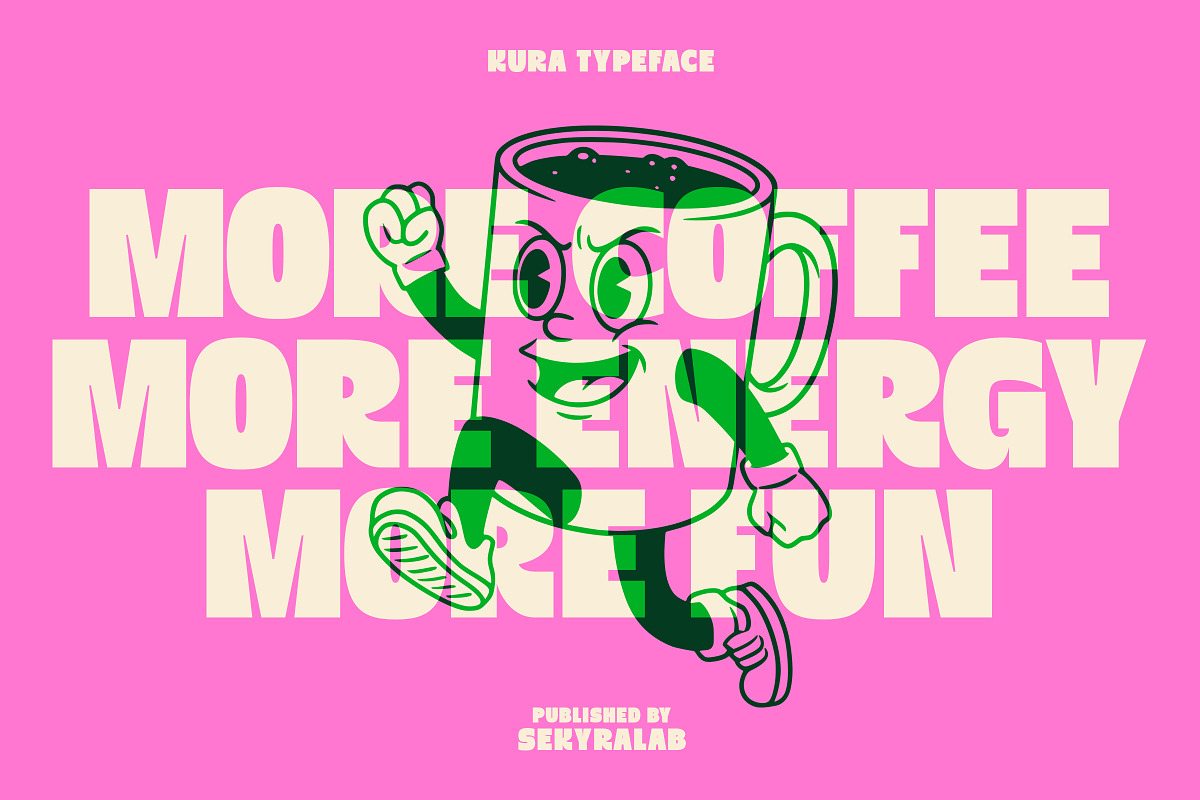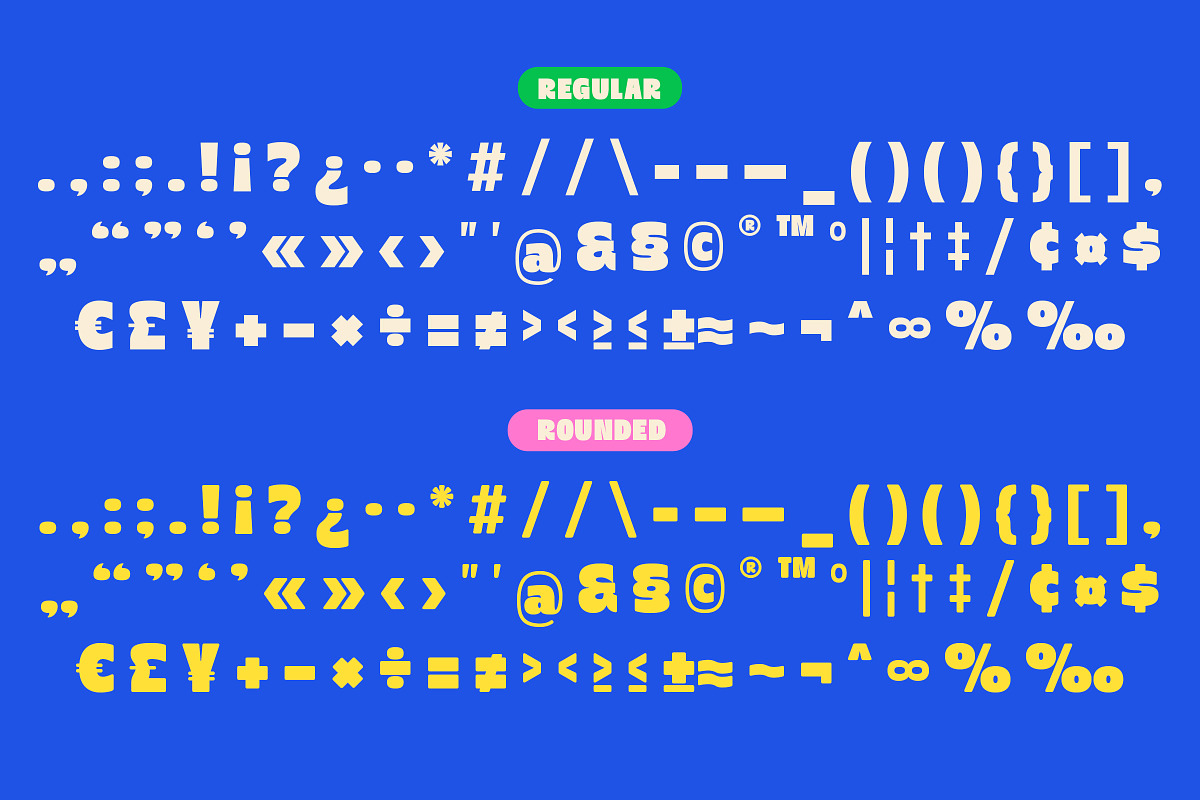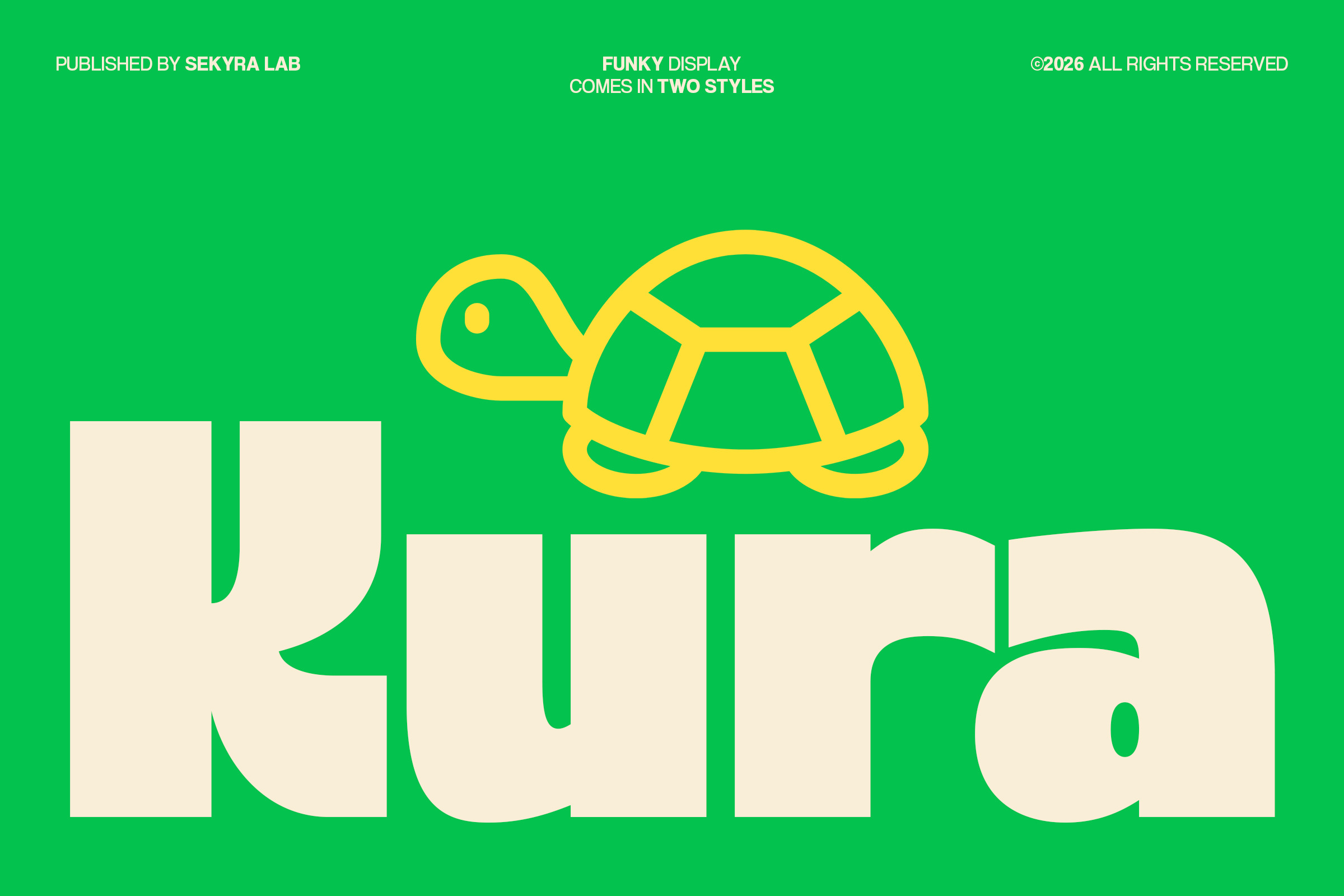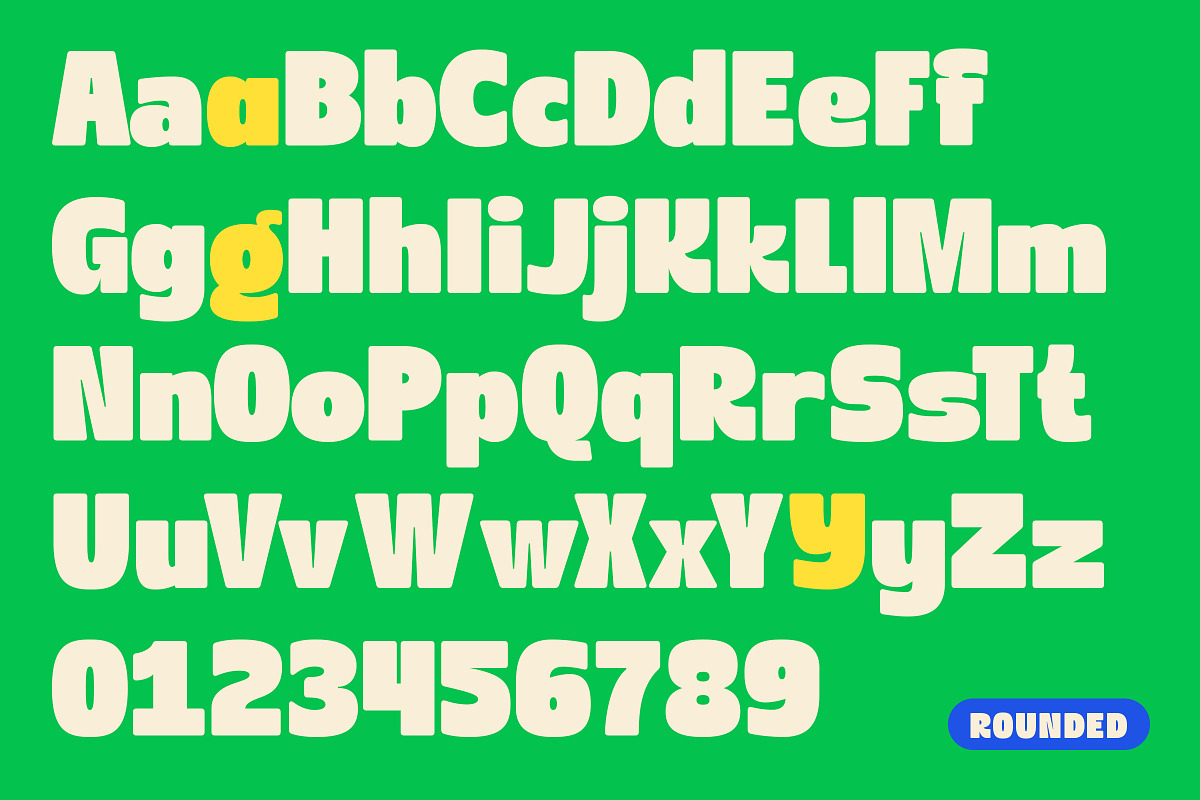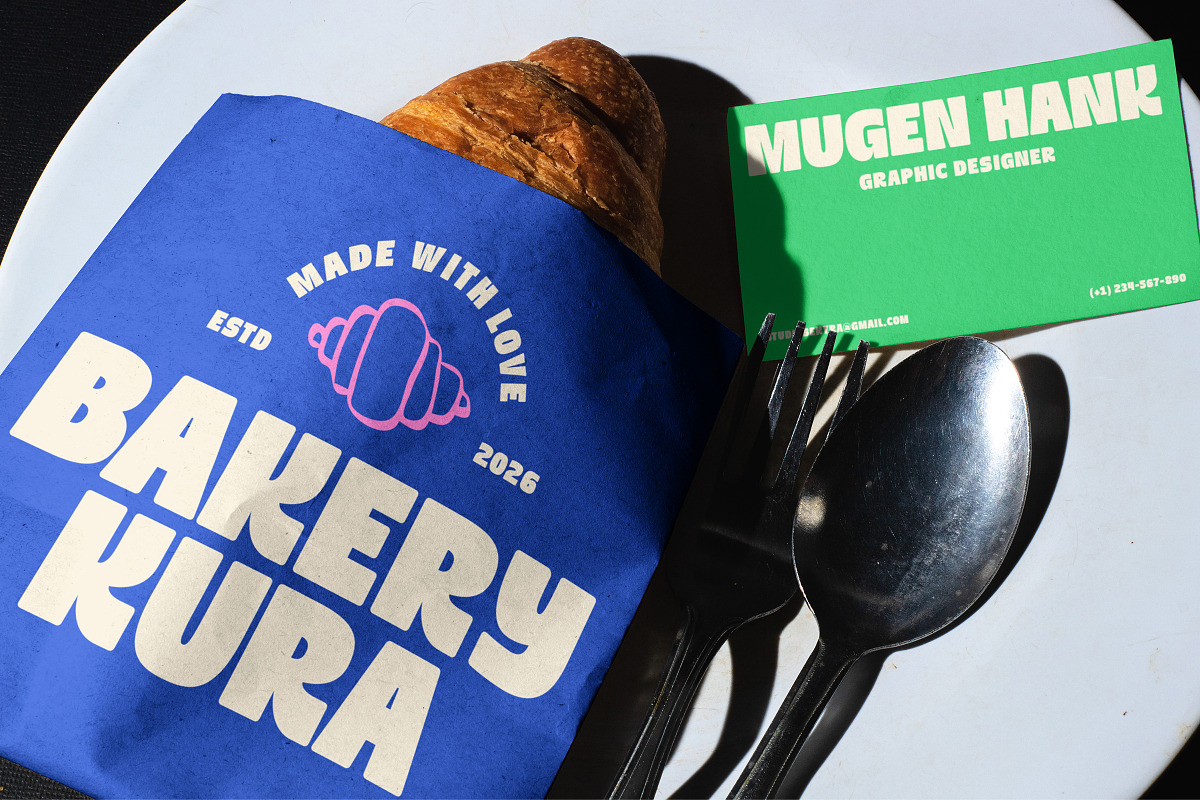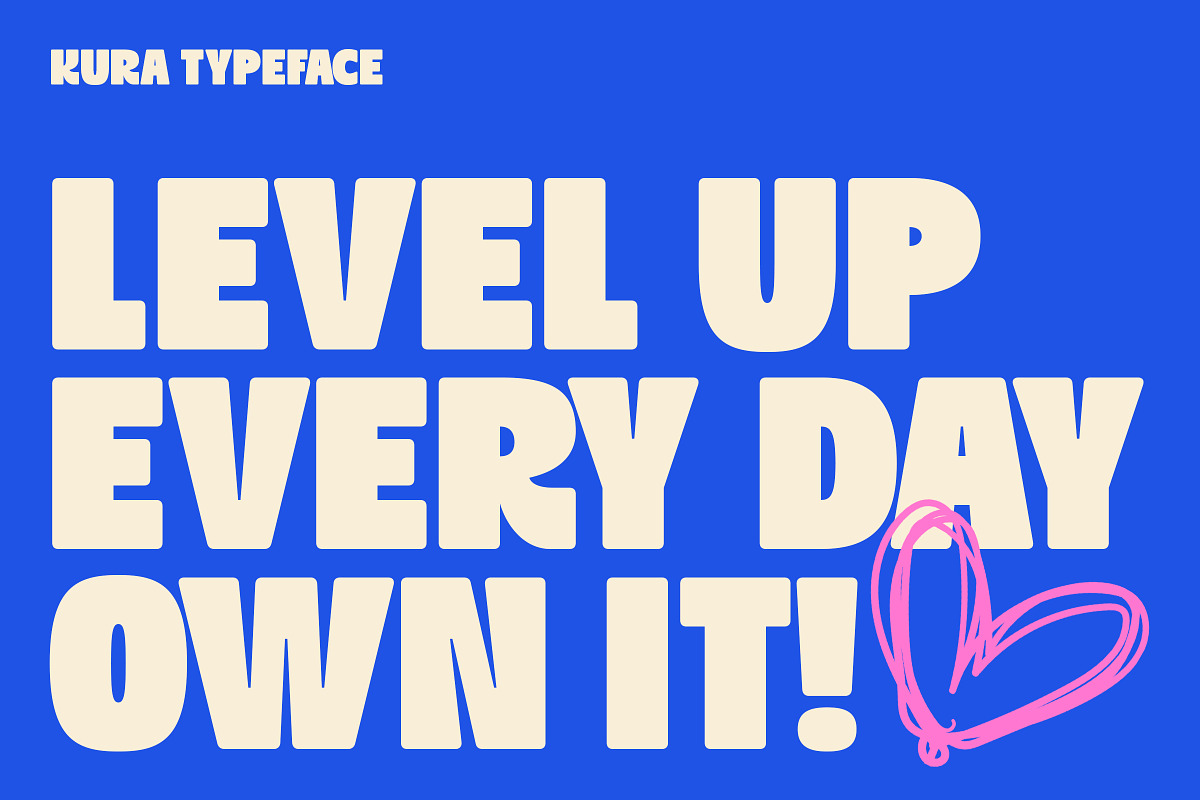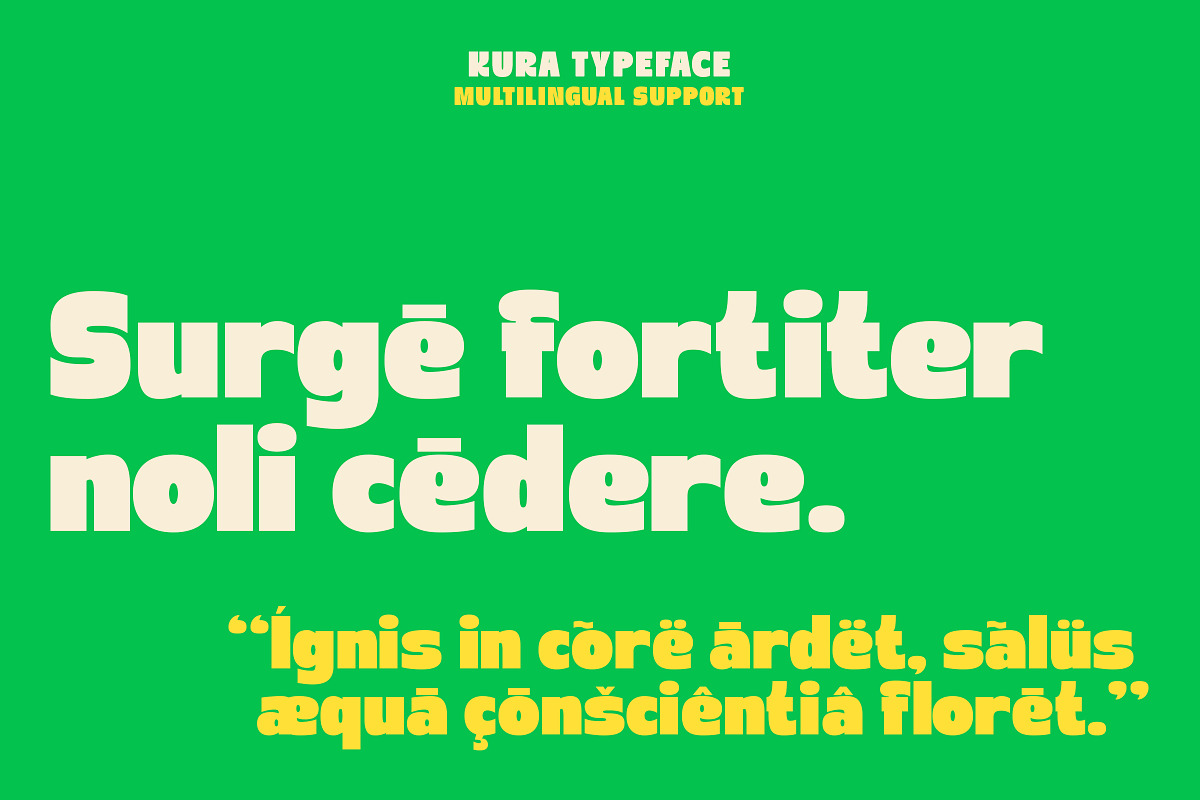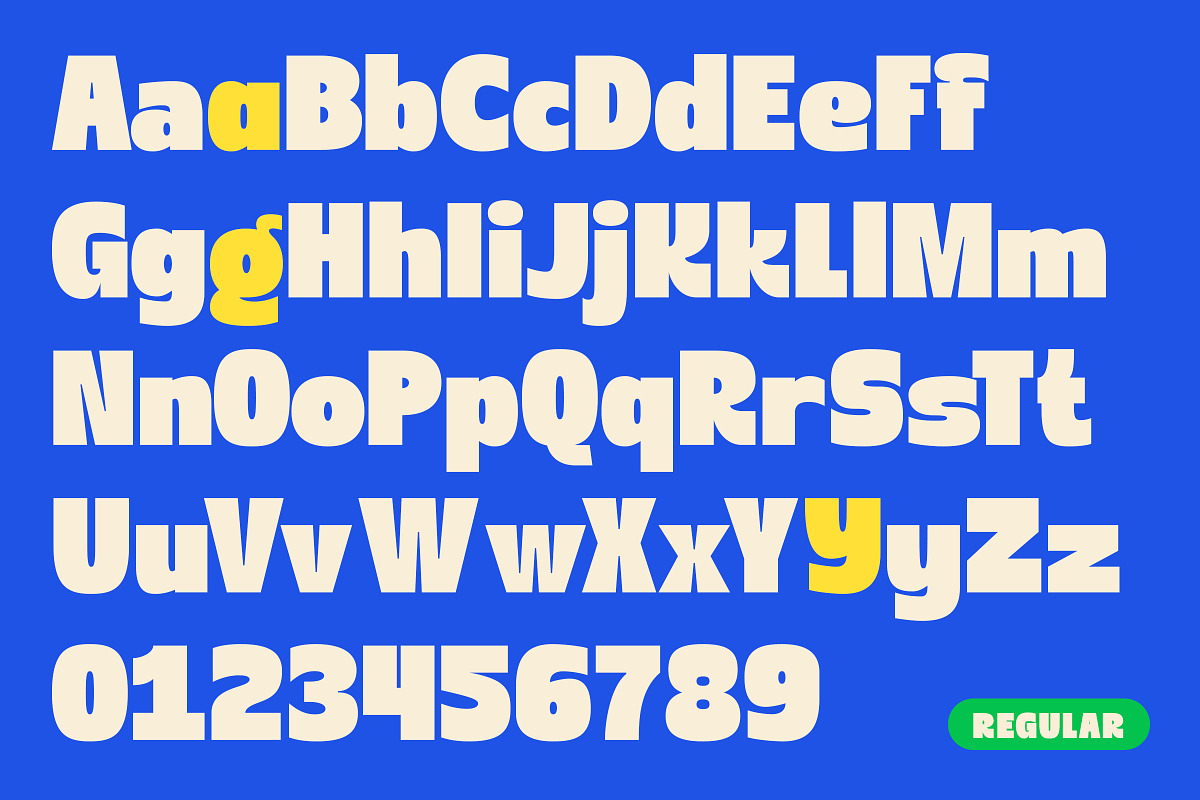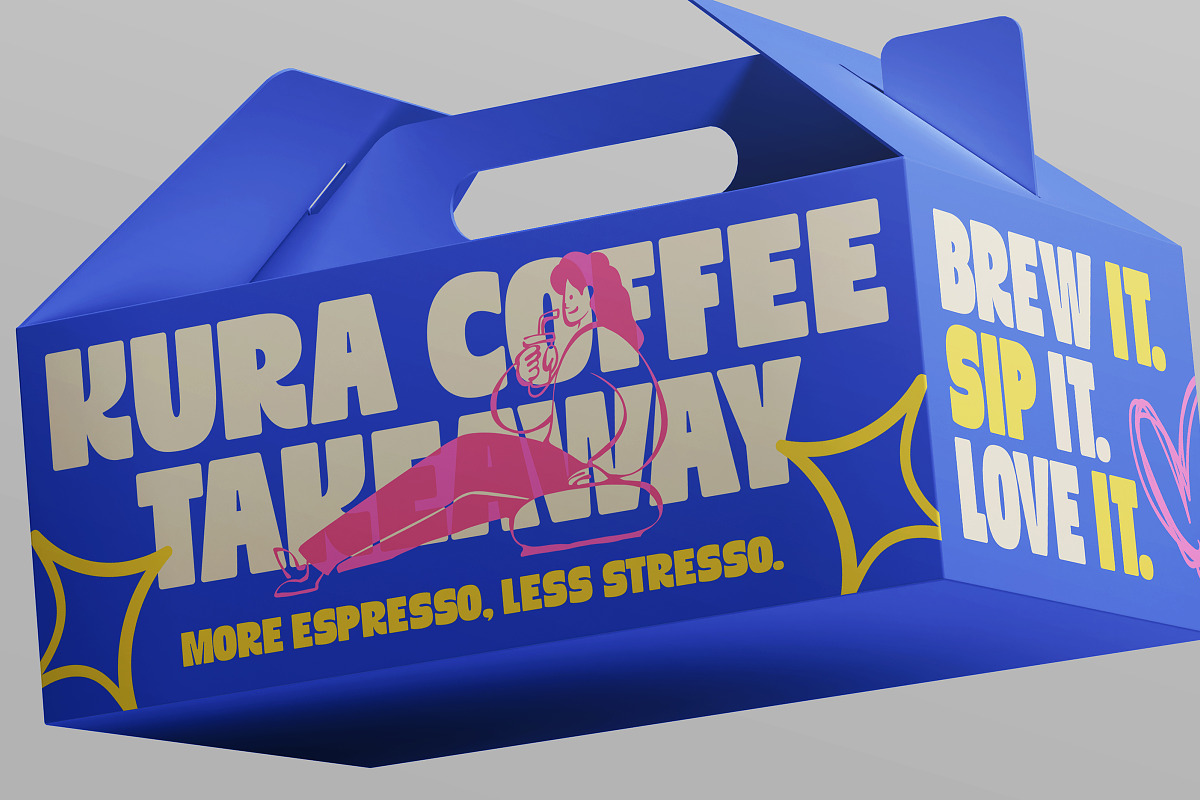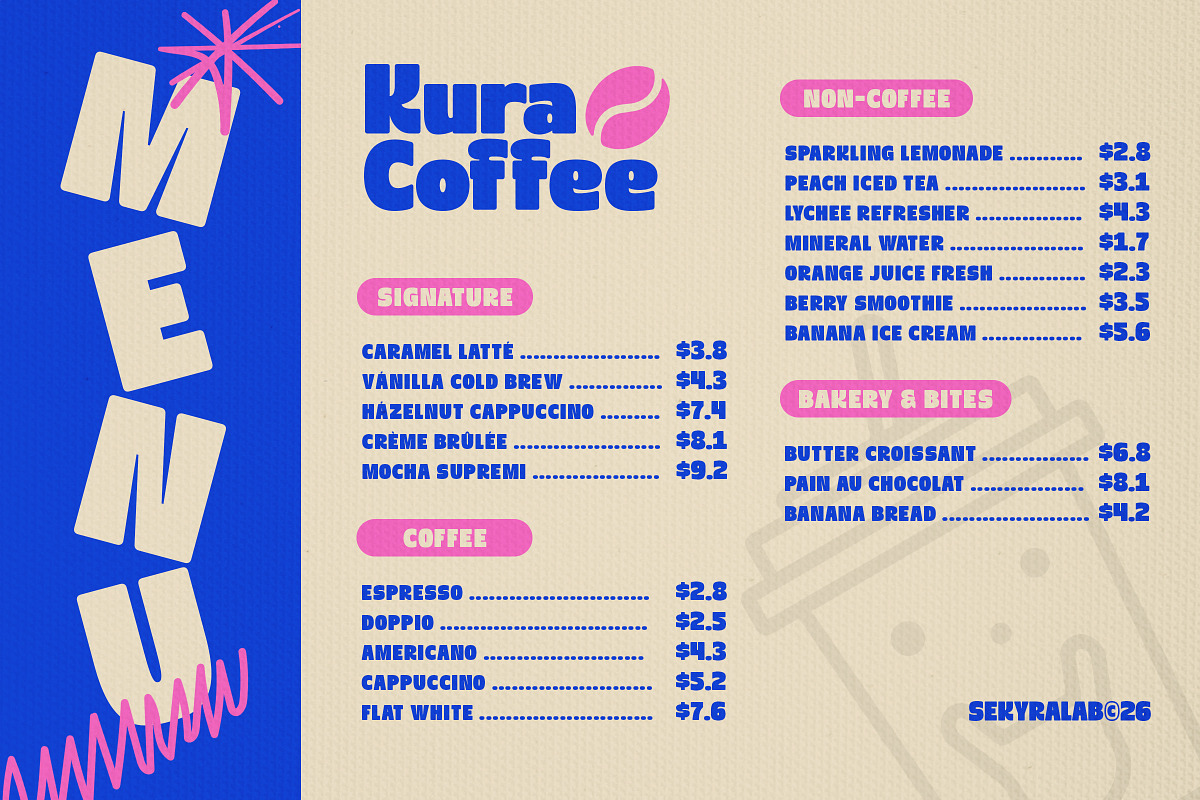
Kura – Funky Bold Display Sans Font
Kura is a funky bold display sans serif font designed to bring fun, energy, and personality into your designs. Featuring soft curves, chunky shapes, and playful proportions, this typeface creates a friendly and eye-catching visual presence. It’s perfect for projects that need a cheerful and expressive touch while still maintaining strong readability.
With its versatile and approachable style, Kura fits perfectly across a wide range of creative applications. Whether you're designing for branding, packaging, posters, or café menus, this font delivers a warm and inviting vibe. Its bold yet soft character makes it especially suitable for playful, modern, and retro-inspired visuals.
Key Features: • 2 Styles (Regular & Rounded) • Multilingual Support • Uppercase & Lowercase Characters • Numbers & Punctuation • OpenType Features • File Formats: OTF, TTF, WOFF